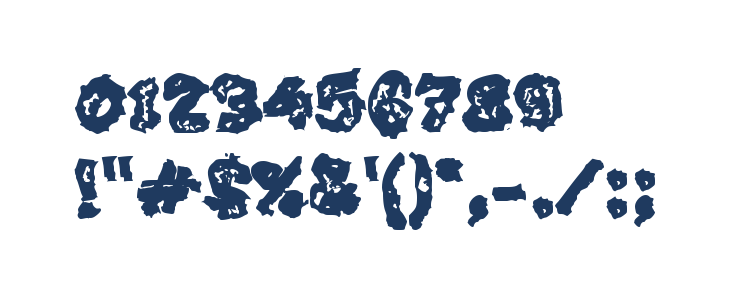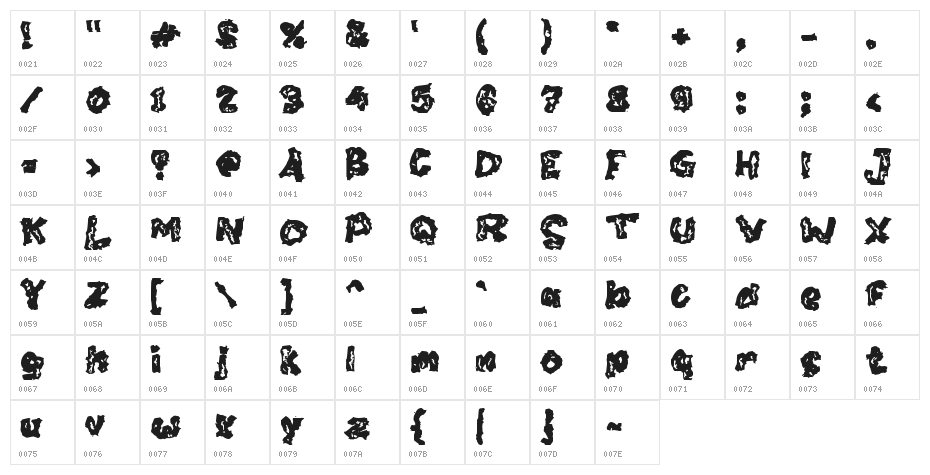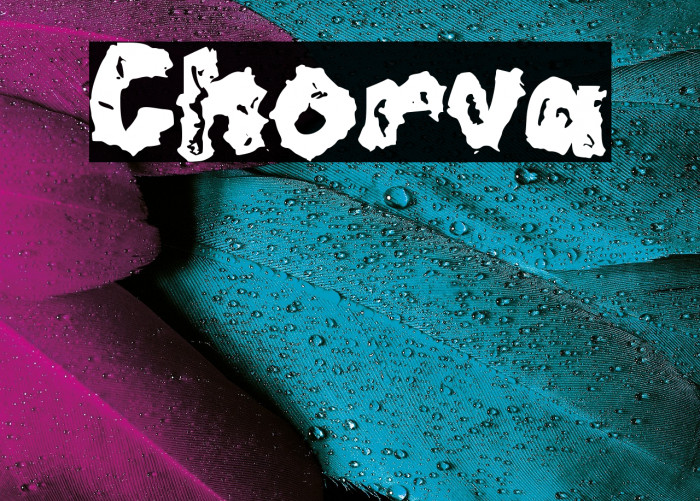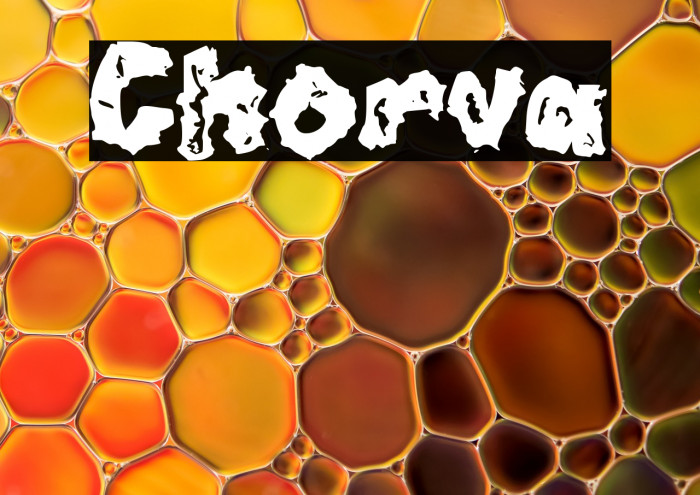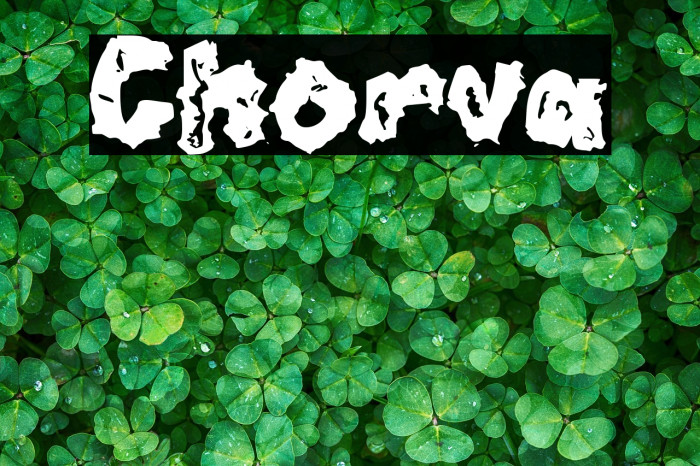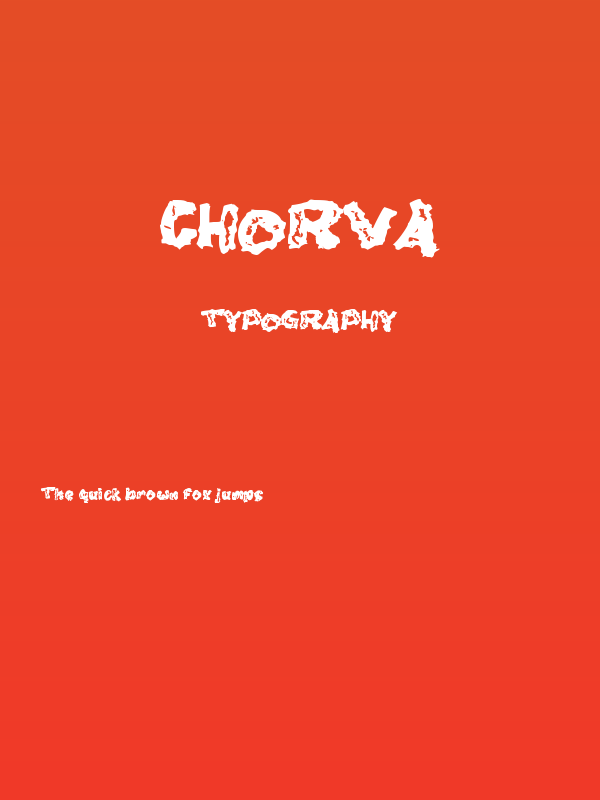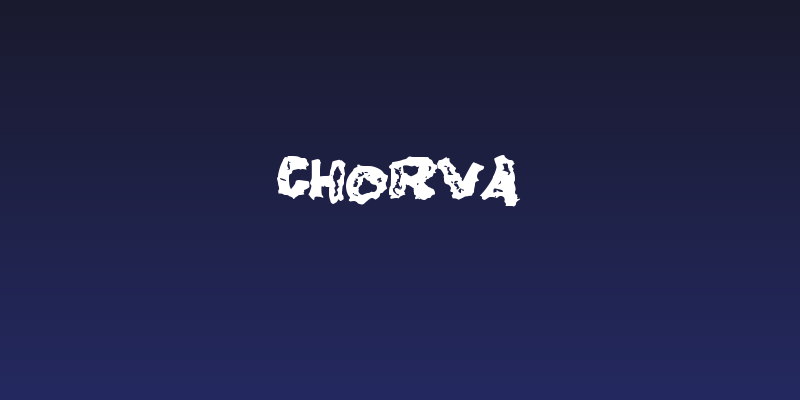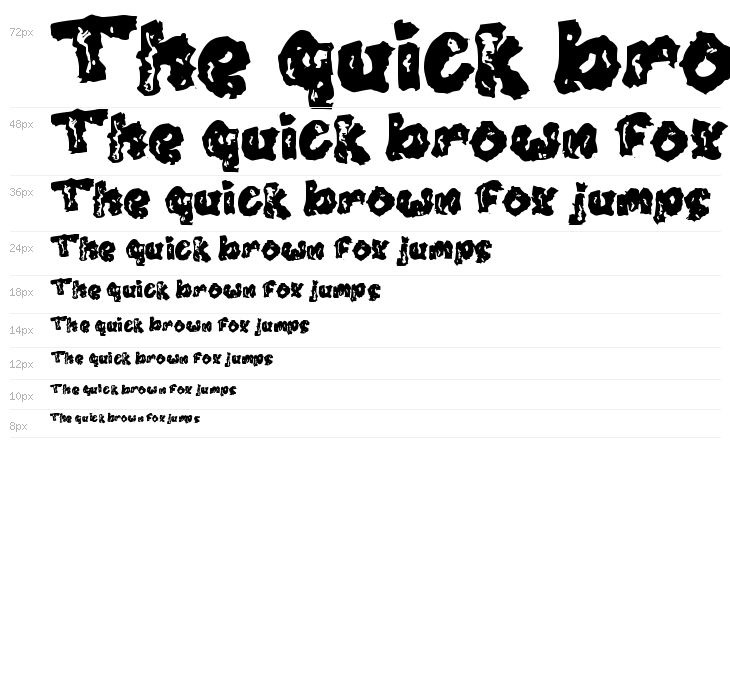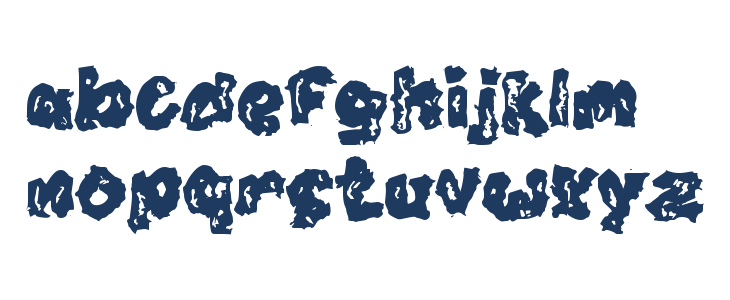
Chorva Font
Chorva Description
This font features a rugged, distressed appearance, with each character appearing as if it has been torn or eroded. The bold and irregular edges give it a chaotic and dynamic feel, making it stand out with a strong visual impact. The uppercase and lowercase letters maintain a consistent style, with a rough texture that suggests a sense of rawness and energy. Numbers and special characters follow the same design, ensuring uniformity across all glyphs. This font is ideal for projects that require a bold statement or an edgy, unconventional look.
| Proposed Projects | Ideal for album covers, posters, graffiti art, or any project needing an edgy, bold statement. |